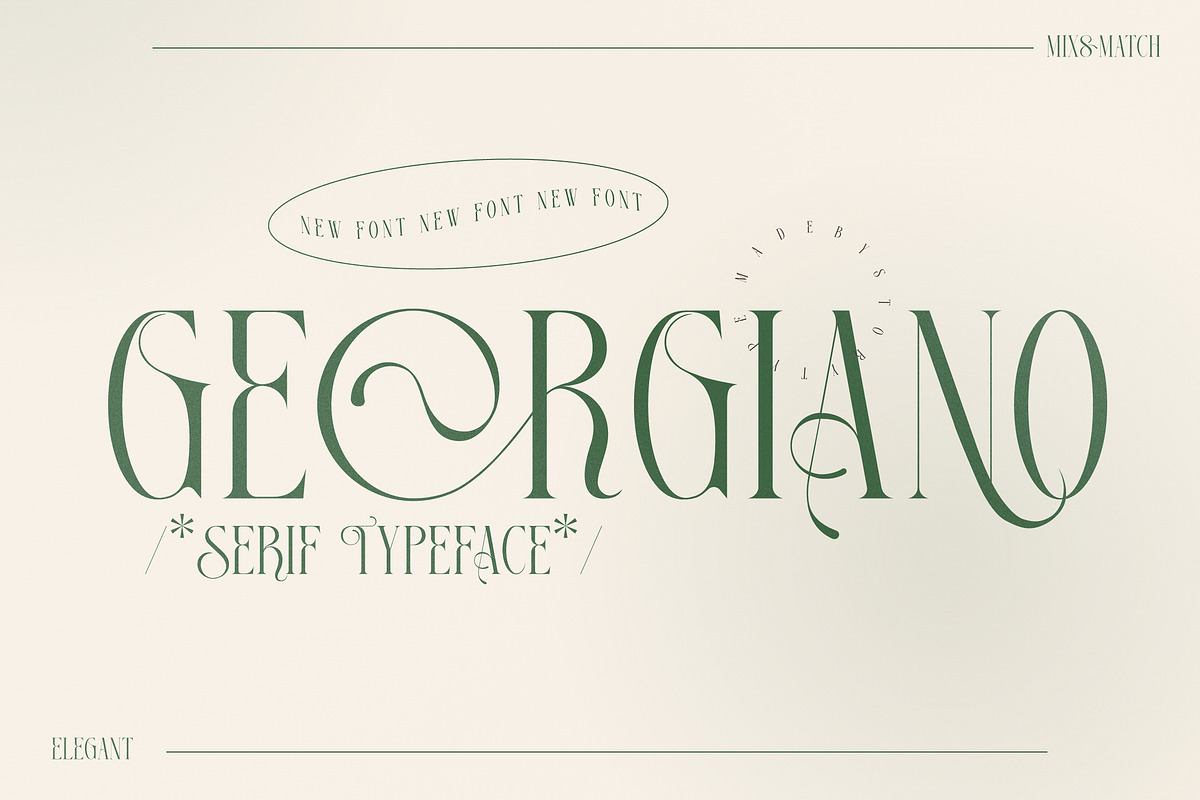
Georgiano Modern Serif Font Free Download
The Georgiano Modern Serif Font Free Download is a sleek and sophisticated serif typeface designed to bring a polished and contemporary feel to any design project. Perfect for creating logos, branding materials, websites, and editorial designs, this font adds a touch of elegance and modernity to your work. Please note, for commercial use, a license must be purchased. You can download it for free for testing purposes.
With its clean lines and classic serif design, the Georgiano Modern Serif Font Free Download is ideal for projects that require a balance of tradition and modern flair. Whether you're working on a high-end branding project, a professional portfolio, or digital content, this font ensures your designs look refined and timeless.